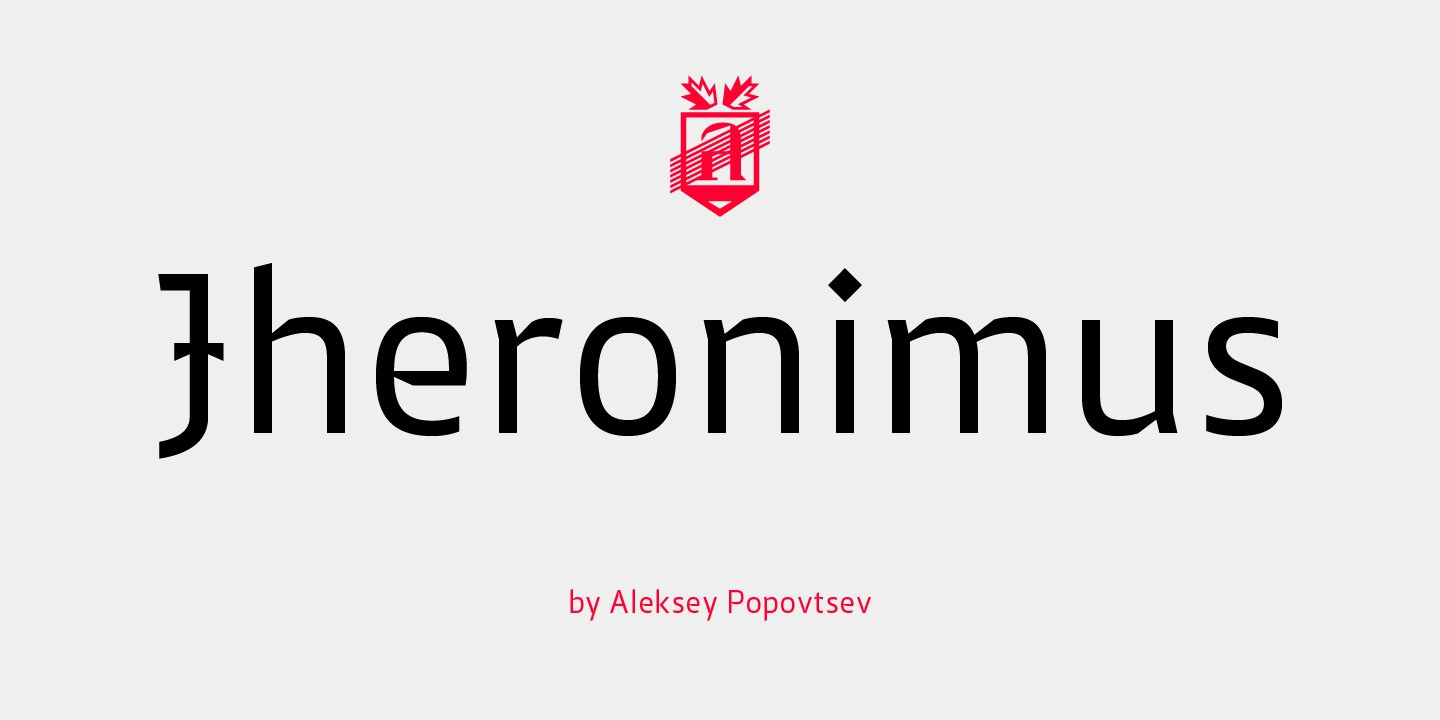
Jheronimus Font
Jheronimus Font is perfect for historical art exhibitions, Renaissance-themed venues, classical cultural institutions, medieval manuscript reproductions, traditional religious organizations, and heritage academic publications. Its distinguished character makes it ideal for medieval history museums, classical art galleries, traditional monastery publications, Renaissance festival materials, historical document restoration, and any project requiring scholarly antiquity with Renaissance elegance and medieval manuscript authenticity appeal.
This font is exciting because it honors the artistic legacy of medieval illuminated manuscripts and Renaissance calligraphy while delivering contemporary functionality for organizations celebrating historical scholarship, classical learning, and the timeless beauty of traditional European manuscript art. The masterfully crafted letterforms evoke the meticulous artistry of medieval scribes and Renaissance scholars, creating typography that feels both historically authentic and intellectually distinguished.
The Jheronimus Font family typically includes Regular, Bold, and ornamental variations with medieval flourishes, Renaissance-inspired decorative elements, and scholarly ornaments that enhance its classical personality. This comprehensive collection enables historical professionals to create authoritative brand systems that maintain period authenticity while offering creative flexibility for various academic applications requiring both historical accuracy and contemporary scholarly positioning.